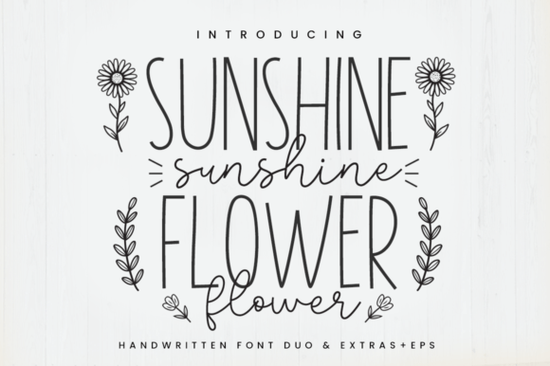
When you are designing for a print-on-demand store or preparing files for your Cricut, finding the right font is just the first step. You also need it to come with practical extras that save you time. The Sunshine Flower Font offers exactly that: a modern tall sans serif, a friendly handwritten script, plus a full doodles font and EPS vector files of sunshine and rainbows. This means you can create a complete sticker pack or greeting card set without sourcing graphics from multiple places. Everything already matches.
What do I get inside the download package?
The bundle is split into practical parts so you aren't hunting for matching elements later. You get two main fonts designed to pair well together. The tall sans serif is sharp and modern for headers, and the handwritten script adds a personal feel for body text. Beyond the fonts, you receive a doodles font for small decorative accents and EPS vector files of sunshine and rainbows for larger graphics. These extras make the bundle particularly useful if you are making:
- Sticker packs – Use the script for quotes, the sans serif for short lines, and the doodles for small accents.
- Greeting cards – The height of the sans serif makes it easy to stack text vertically on card fronts.
- Vinyl decals – The vector sunshine and rainbow resize cleanly for large wall decals or small laptop stickers.
- Social media templates – The condensed look of the sans serif fits nicely into Instagram story layouts.
Which other script fonts work well for similar crafting projects?
No single font works for every single project. If Sunshine Flower feels too tall or modern for a specific client, you have solid alternatives. For classic wedding invitations or elegant quotes, Almond Script is a solid option to consider. If you need a very clean look for home decor or simple logos, minimalist single-line designs fit perfectly. For a soft, feminine greeting card, a lovely handwritten alternative such as Camila Ashton can give you that delicate flow. And for edgy, industrial, or cut-out stencil looks, unique stencil typography is highly durable and readable. Each brings something different to the table, but Sunshine Flower stands out because it gives you the complete matched set right out of the box.
Quick checklist before you download
Review this list to make sure this font duo fits your next project:
- ☐ Do you need both a display font (sans serif) and a text font (script)? This bundle has both.
- ☐ Are you creating physical products like stickers or t-shirts? The EPS vectors will save you drawing time.
- ☐ Do you prefer a modern, tall look over a wide, round style? The condensed sans serif is perfect for that.
- ☐ Next step: Open your design software, type your brand name in the tall sans serif, and add a script quote underneath. Drop in the rainbow vector for a complete mockup in just a few minutes.